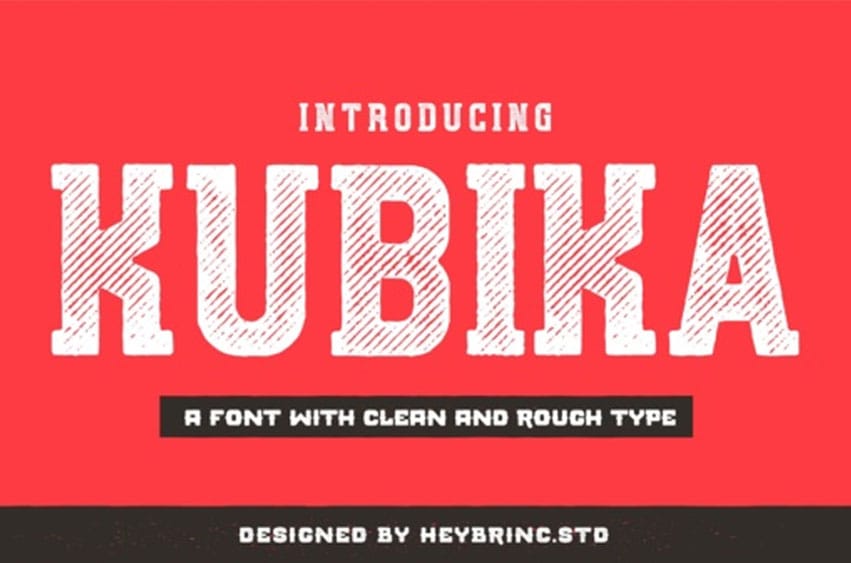
Kubika Font is an all-caps slab serif font, ideal for retro designs and displays.
This font has a cool, athletic look and is easy to integrate into many different design scapes.